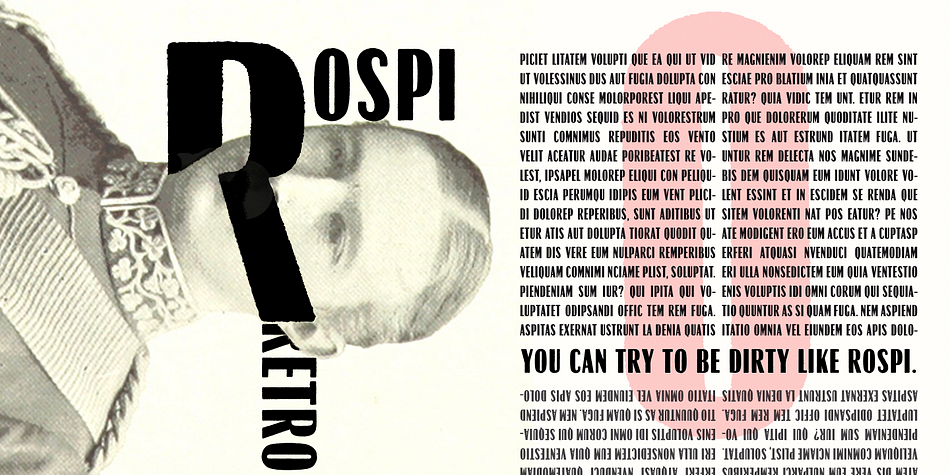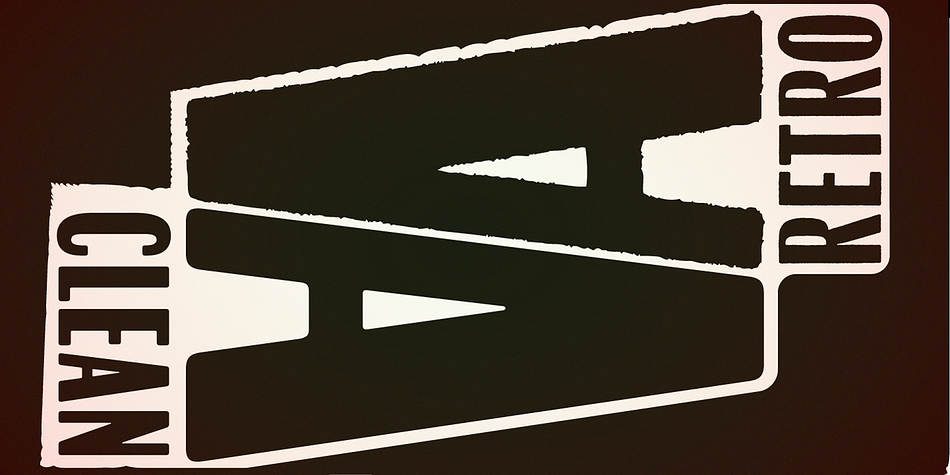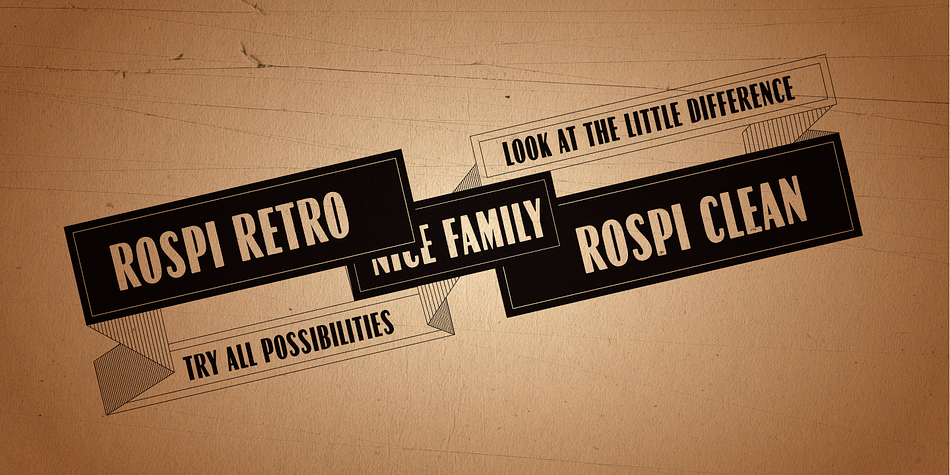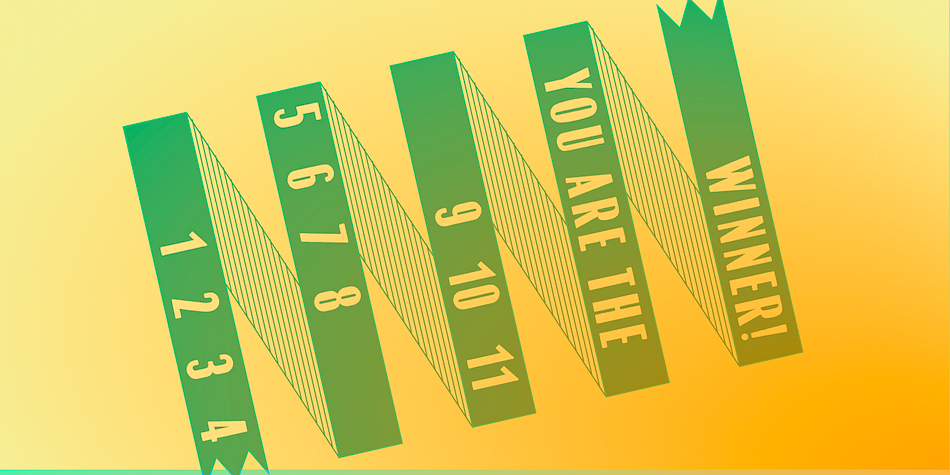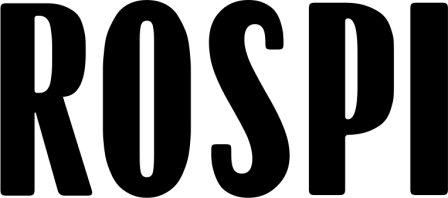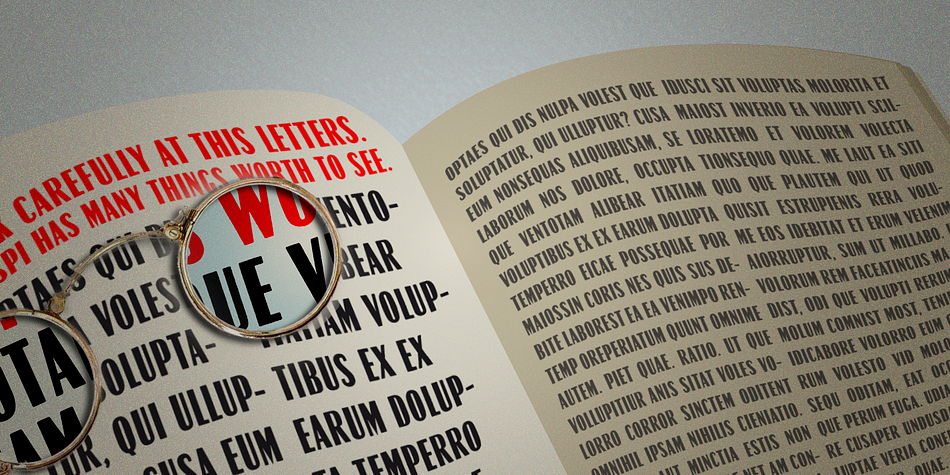
Rospi is a display sans font family. This typeface has two styles and was published by Typoforge Studio.
Rospi Clean and Retro Family is two-element font inspired by
the weekly “Tygodnik Ilustrowany” from the 1933.